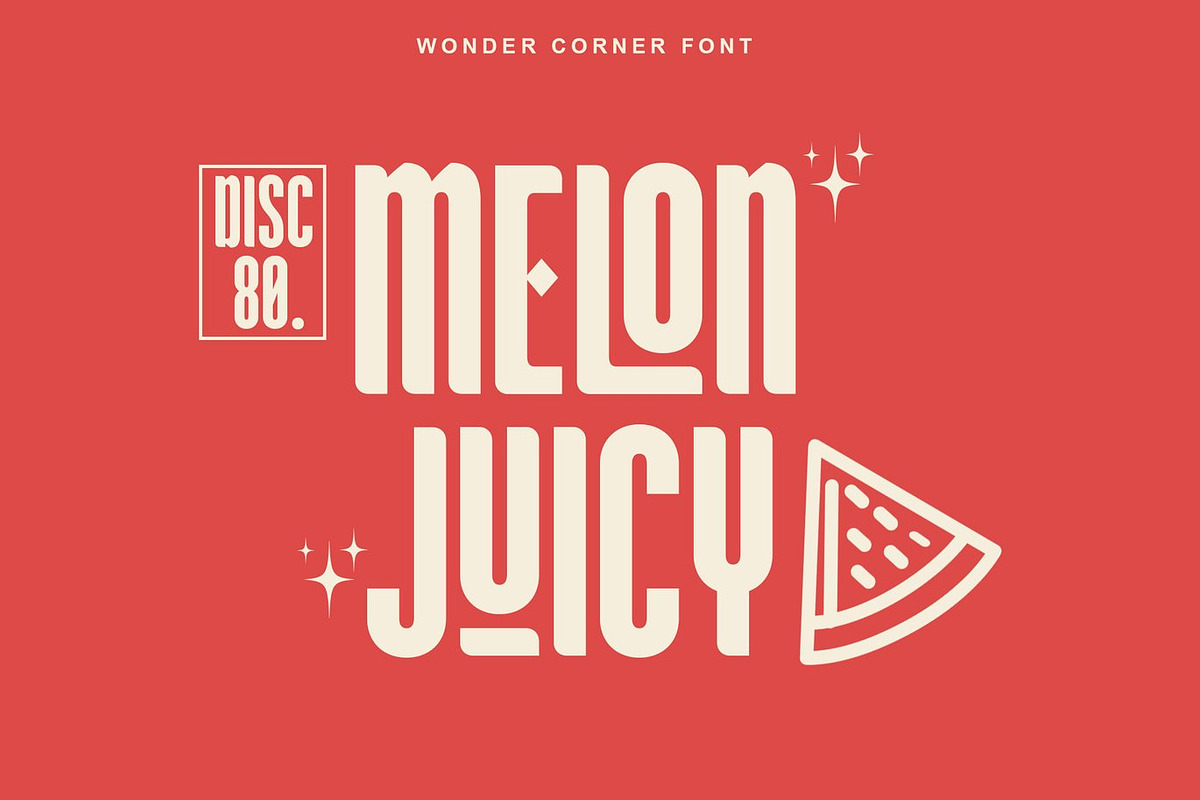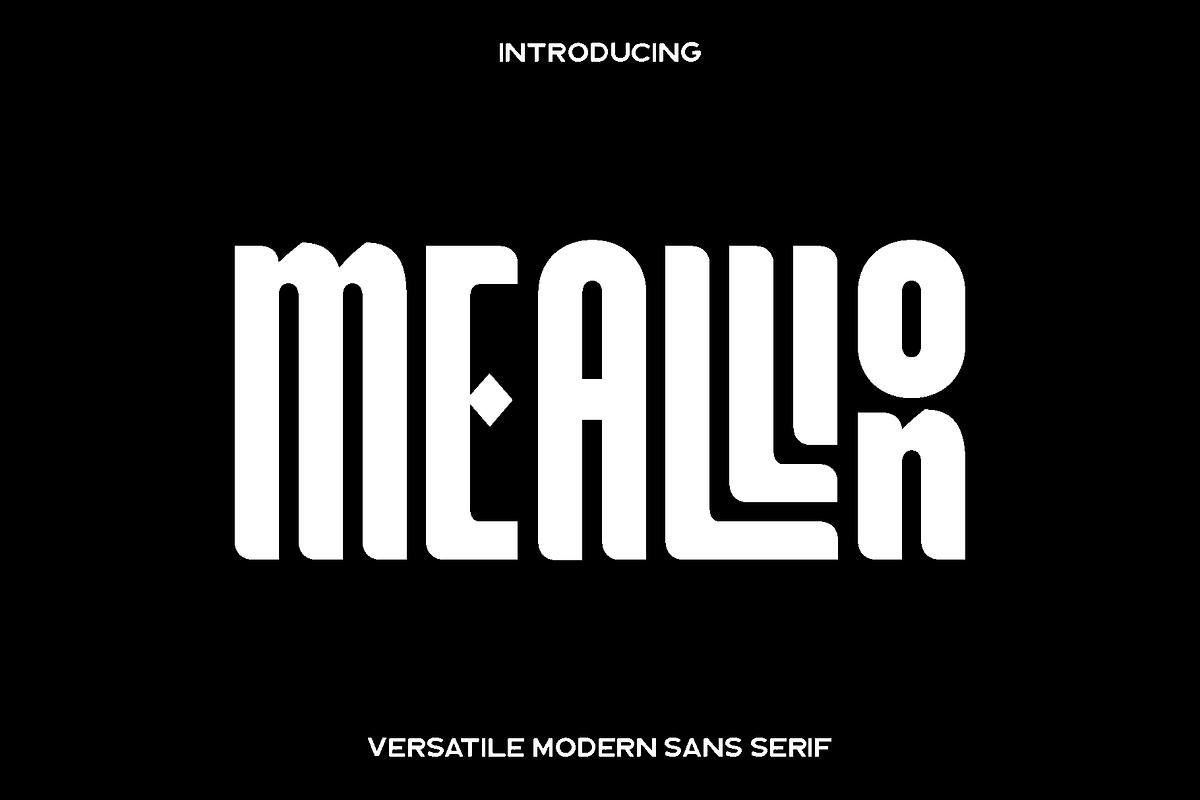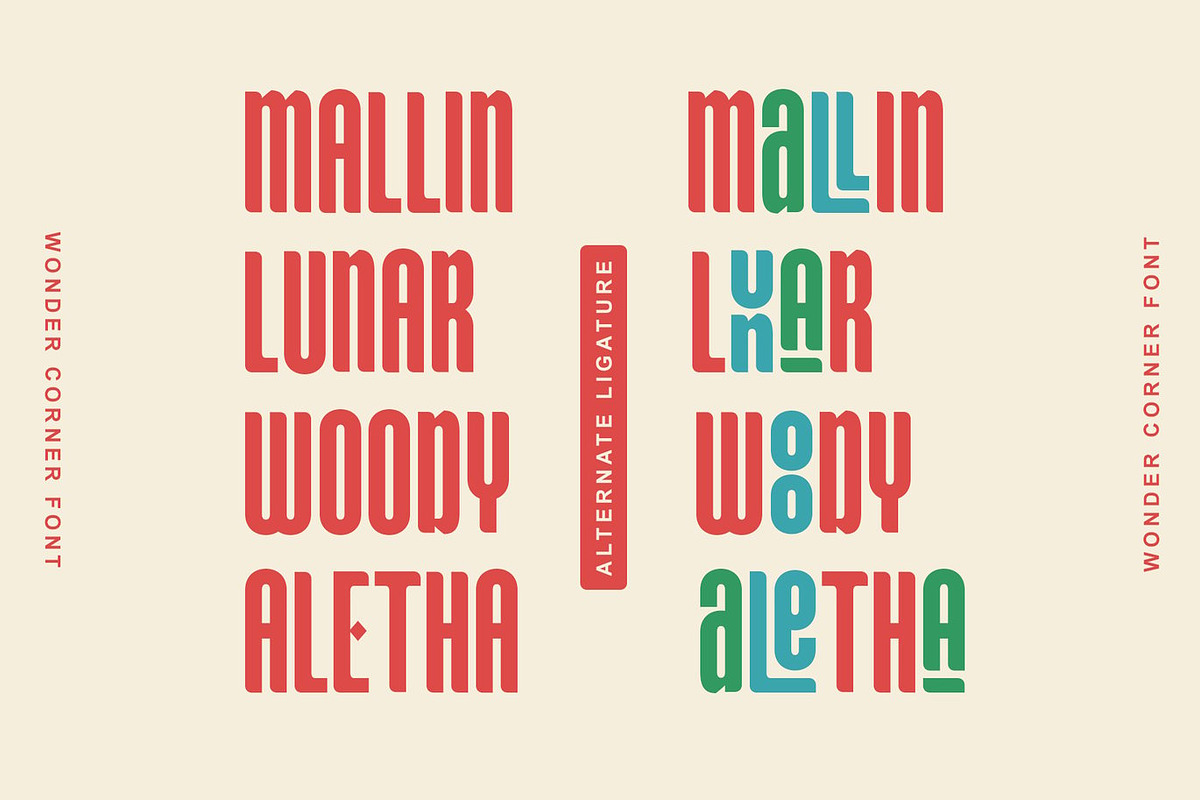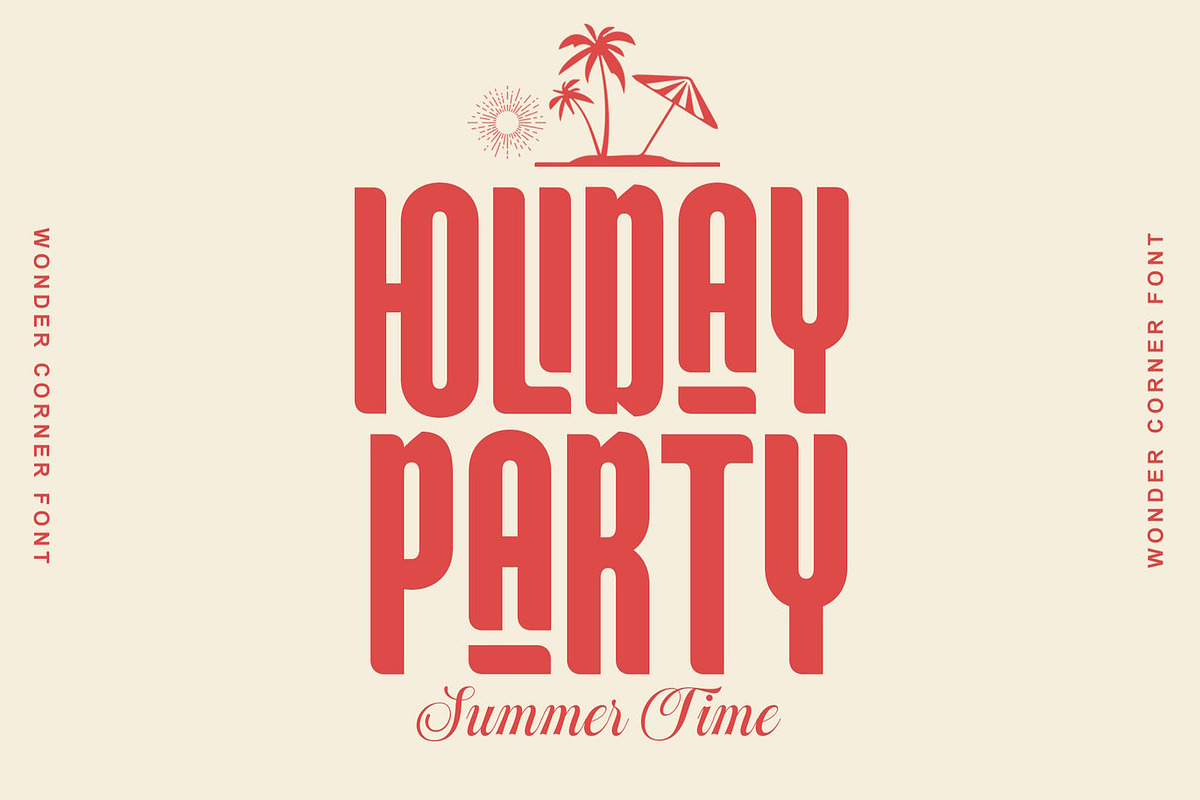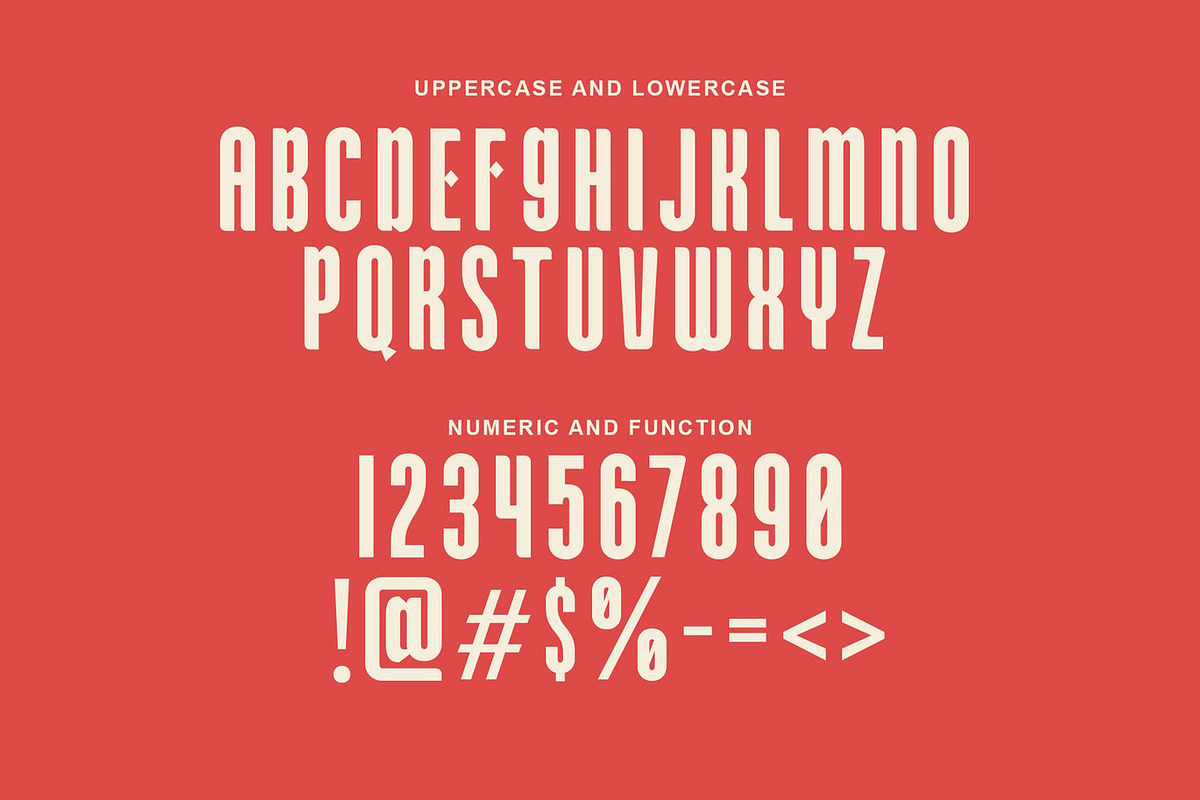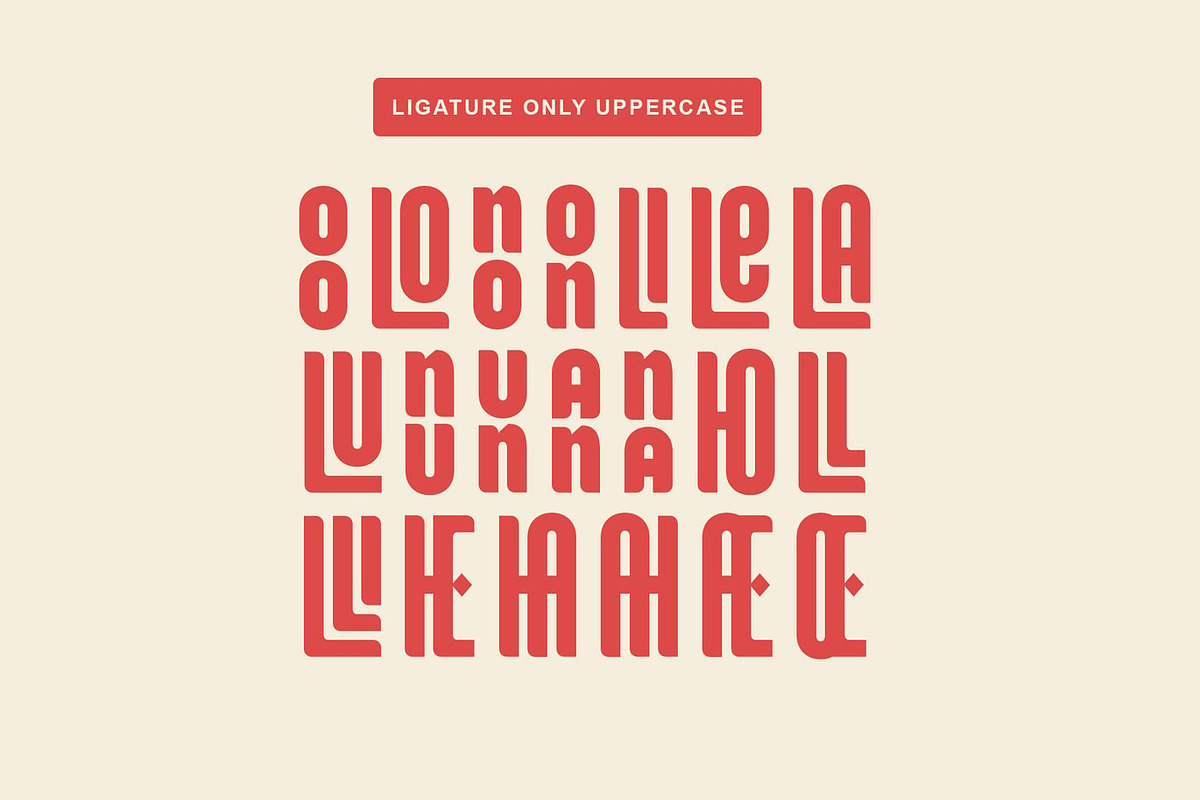
Meallion - Modern Sans Serif
Meallion is a refined and versatile font created to support a wide range of creative projects with clarity and style. Designed with balance and readability in mind, Meallion blends a modern sensibility with a timeless typographic feel. Its carefully shaped letterforms offer a smooth and confident appearance that feels professional yet expressive, making it suitable for both editorial and branding focused designs.
This font shines in books, magazines, logos, branding systems, photography overlays, quotes, blog headers, posters, and advertising layouts. Meallion adapts effortlessly to long form text as well as bold titles, allowing designers to maintain visual consistency across different mediums. Whether used in print or digital formats, it delivers a clean and elegant presence that enhances the overall design.
Meallion feels calm, polished, and reliable. It is ideal for creatives who want a typeface that supports storytelling while adding a subtle sense of character. With strong uppercase and lowercase forms, functional numerals, and smooth ligatures, Meallion provides flexibility without sacrificing aesthetic appeal. Its multilingual support ensures your message reaches a broader audience with confidence and style.
Meallion Font Features:
• Uppercase and lowercase characters
• Numerals and punctuation
• Ligatures included
• Functional and readable design
• Multilingual support